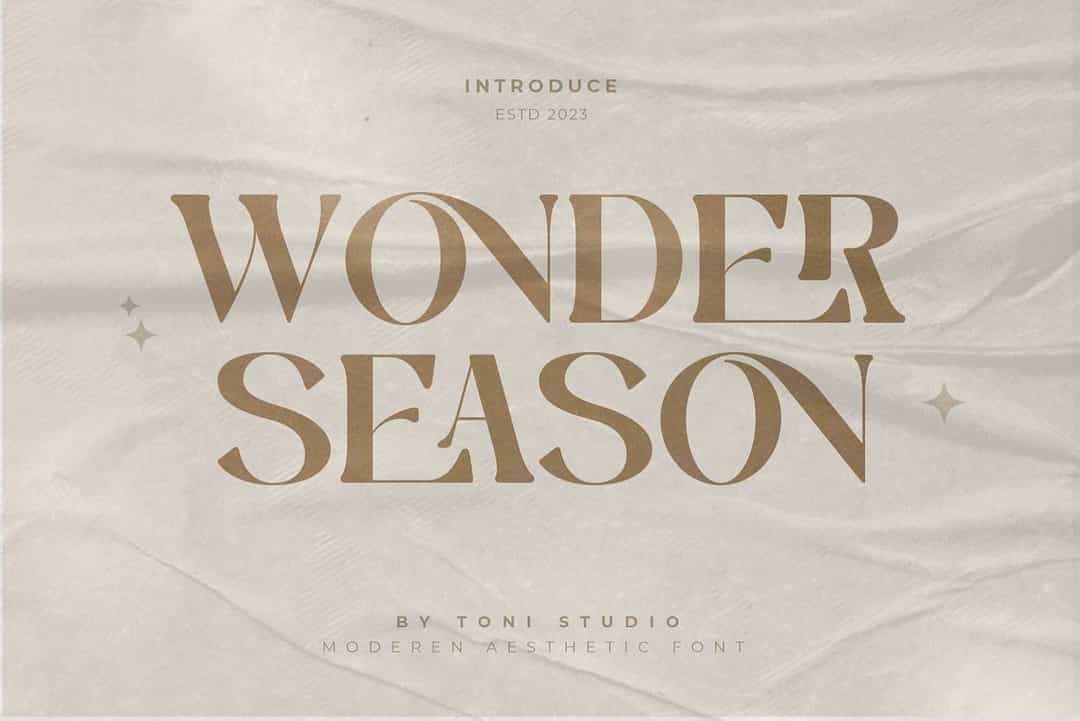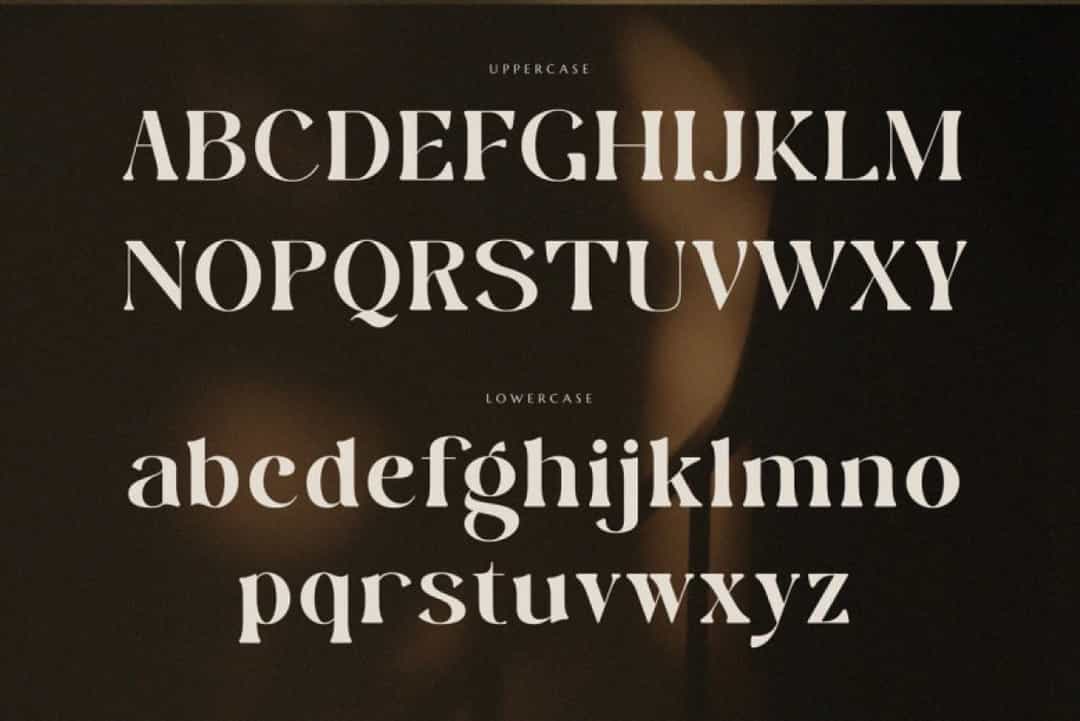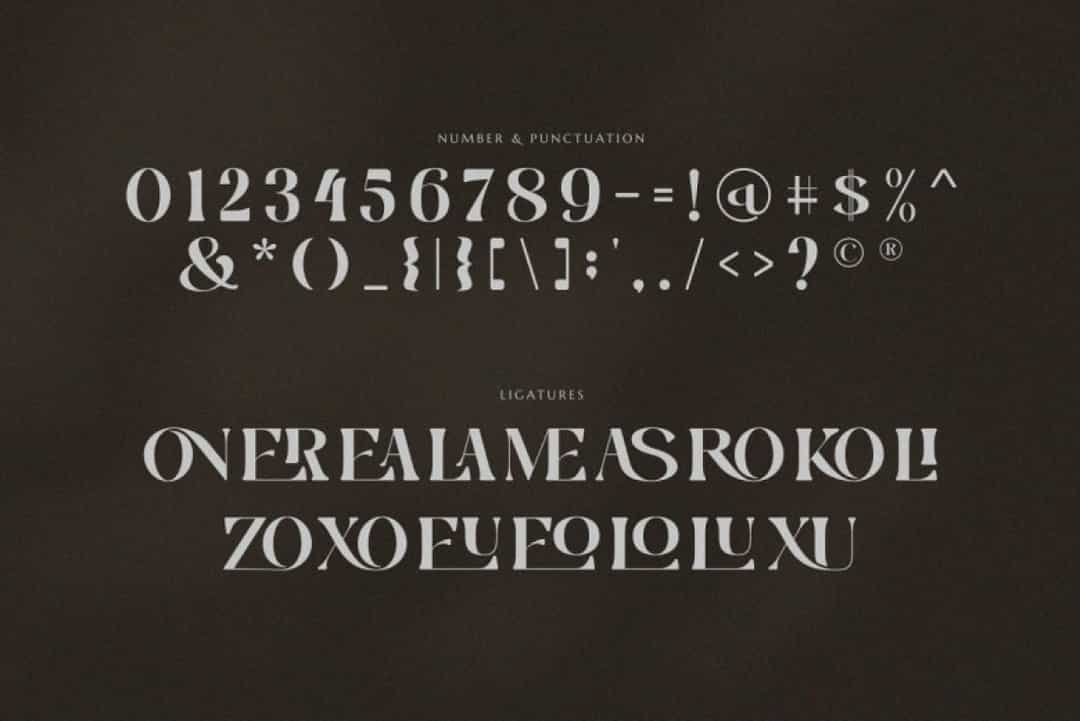
Wonder Seasonis an eye-catching modern classic serif font inspired by 60s groovy style but updated for today. Perfect for premium brands, logos, journals titles, business cards, products and social media posts websites this typeface will surely bring any design project together with its modern flair.